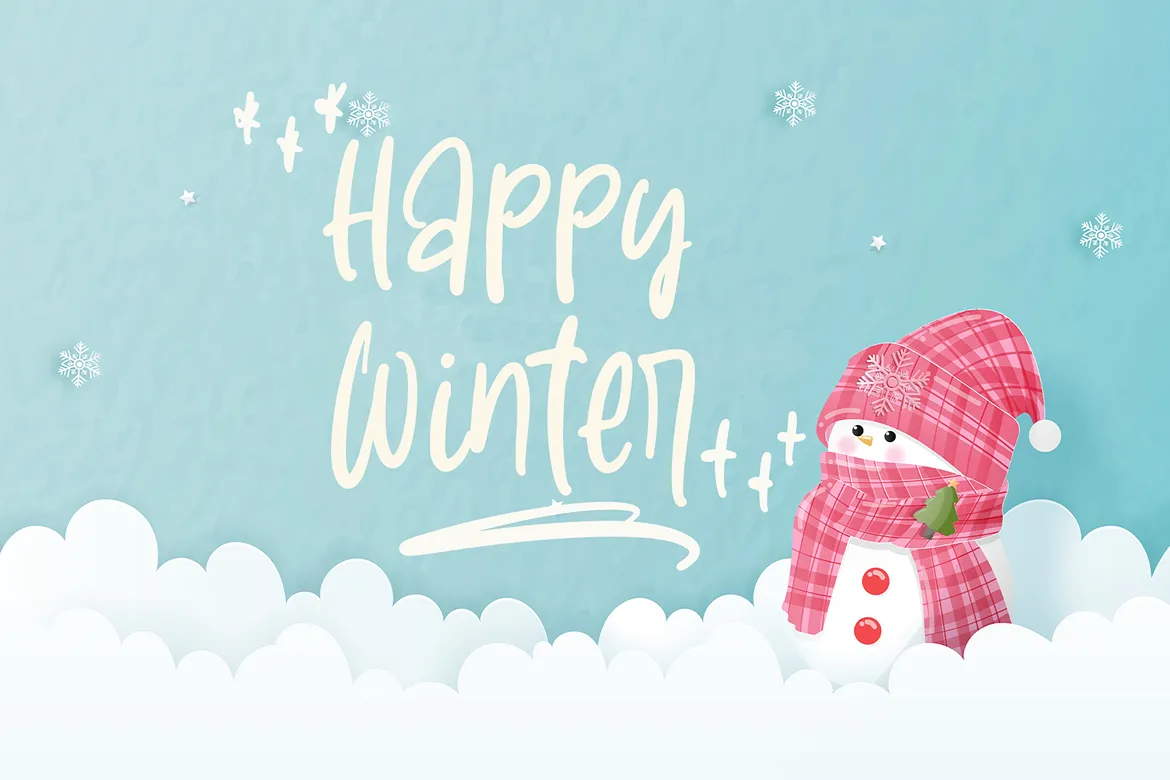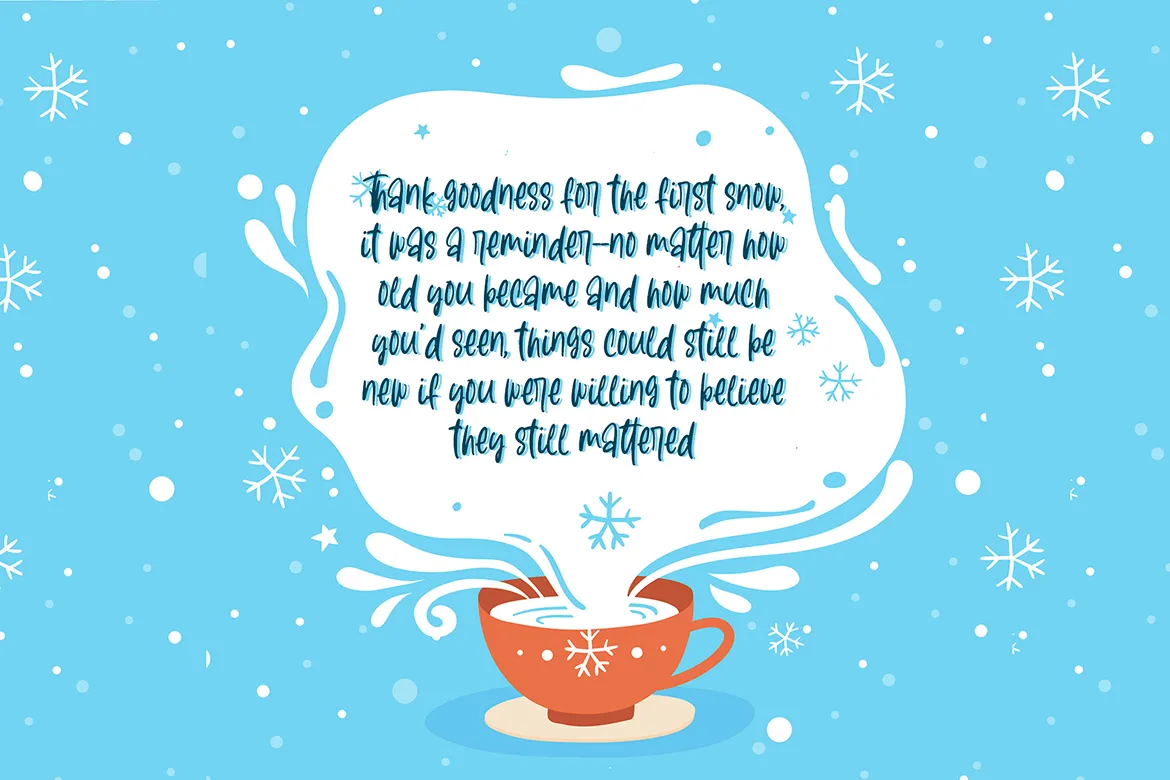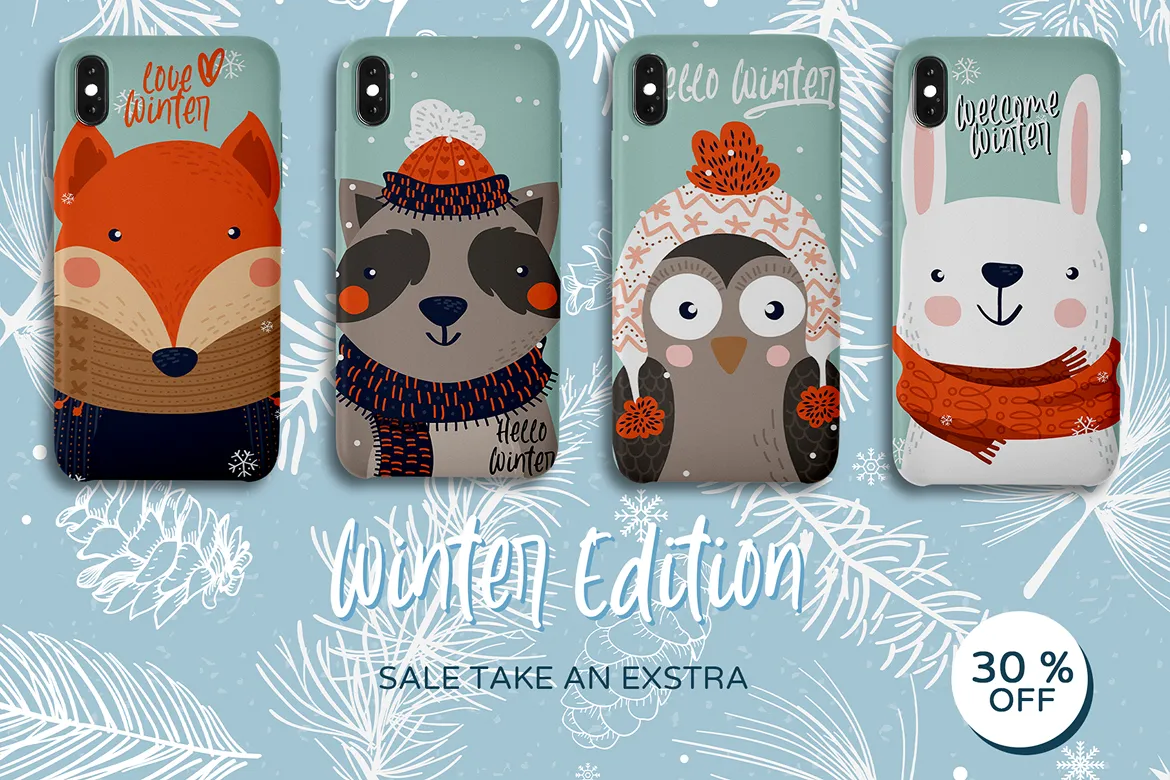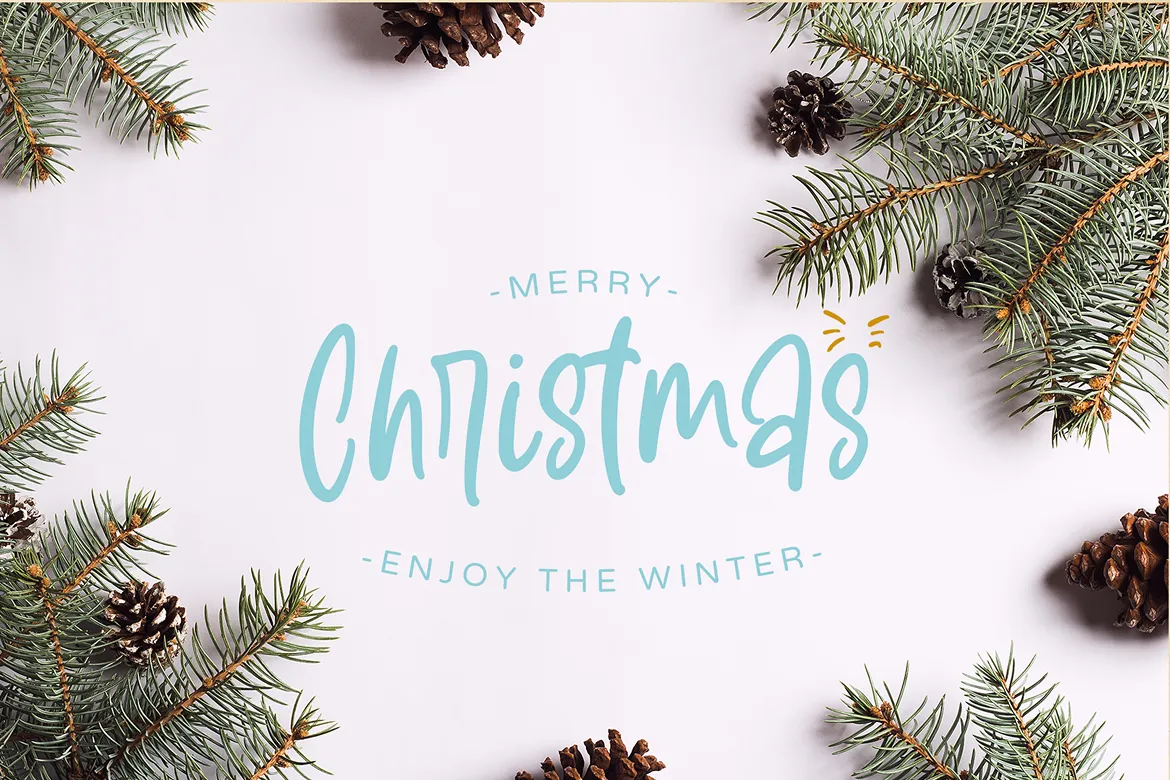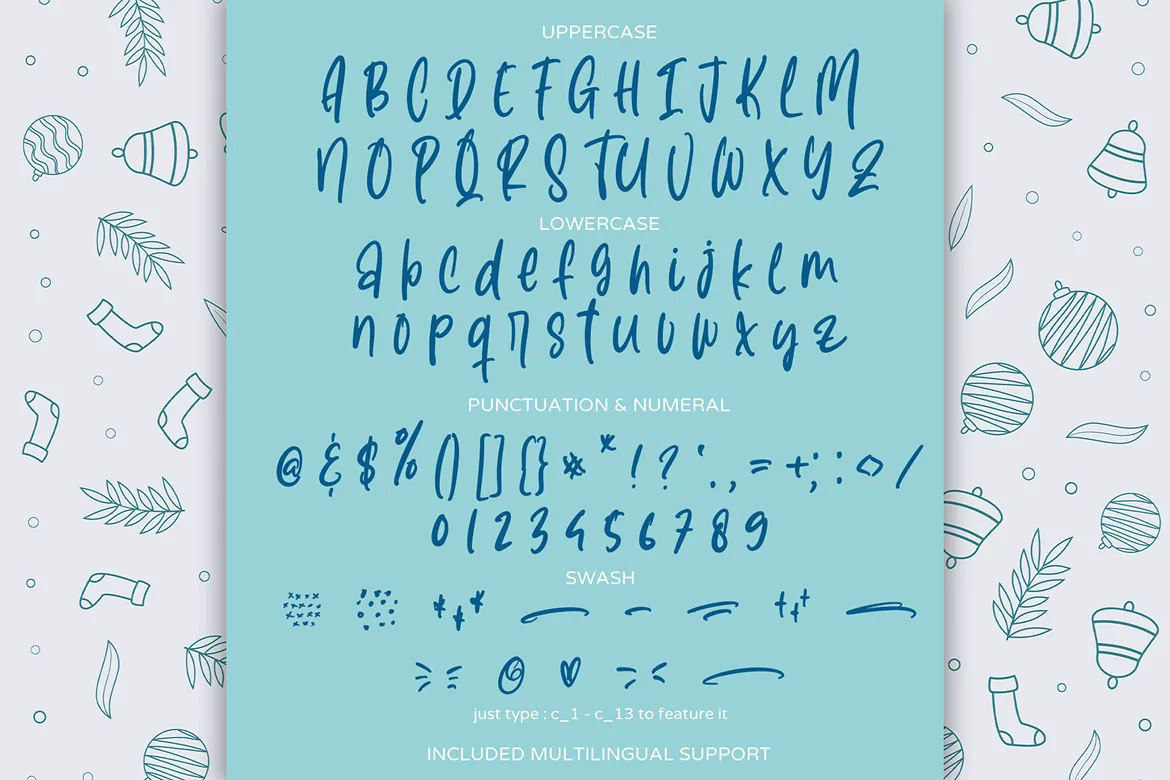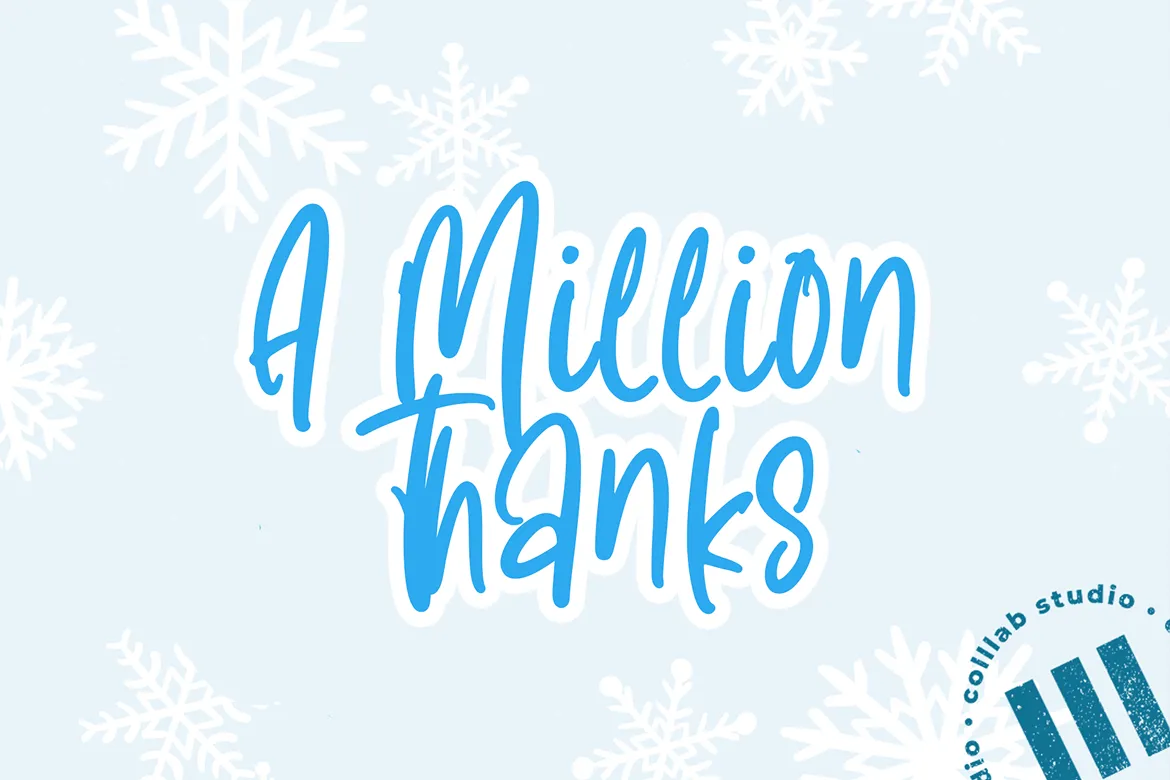
Winter Lova
Winter Lova is a charming modern script font designed with handmade calligraphy strokes and decorative flair. Its elegant swashes and flowing baseline create a feminine and romantic style that works beautifully across creative projects. From branding and invitations to packaging and digital graphics, this font brings warmth and sophistication to every design. Winter Lova’s versatility makes it an essential typeface for designers who want to blend modern aesthetics with authentic handwritten appeal.
Inspiration Behind the Font
Winter Lova was inspired by the beauty of handwritten notes in the colder months—delicate, heartfelt, and expressive. Its calligraphic flow captures both coziness and elegance, making it ideal for personal and professional use.
Key Features
• Full uppercase & lowercase characters
• Numbers & punctuation
• Stylish swashes for decorative flair
• PUA-encoded for easy access
• Multilingual support
Short Description
Winter Lova is a romantic handwritten script font with flowing swashes and a feminine calligraphy style. Ideal for branding, invitations, packaging, and social media, it adds a touch of warmth and charm to any design. With multilingual support and versatile formats, Winter Lova is a must-have for elegant design projects.